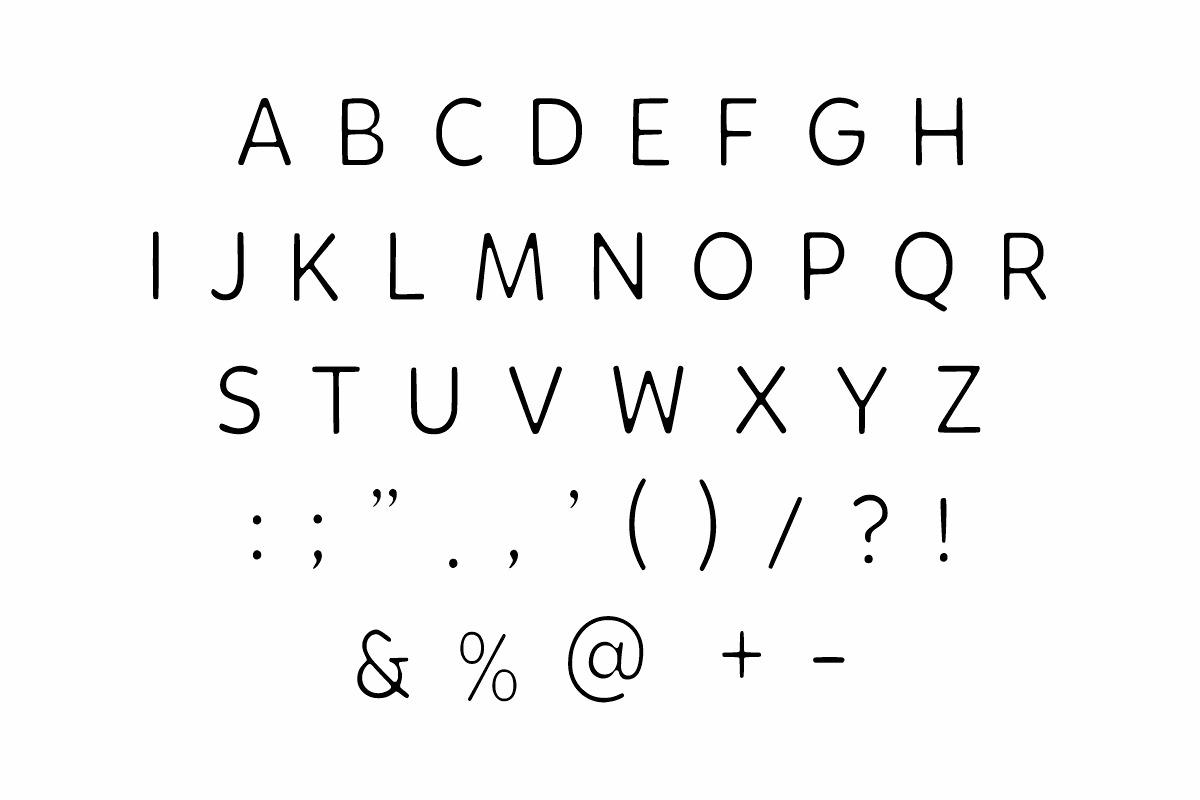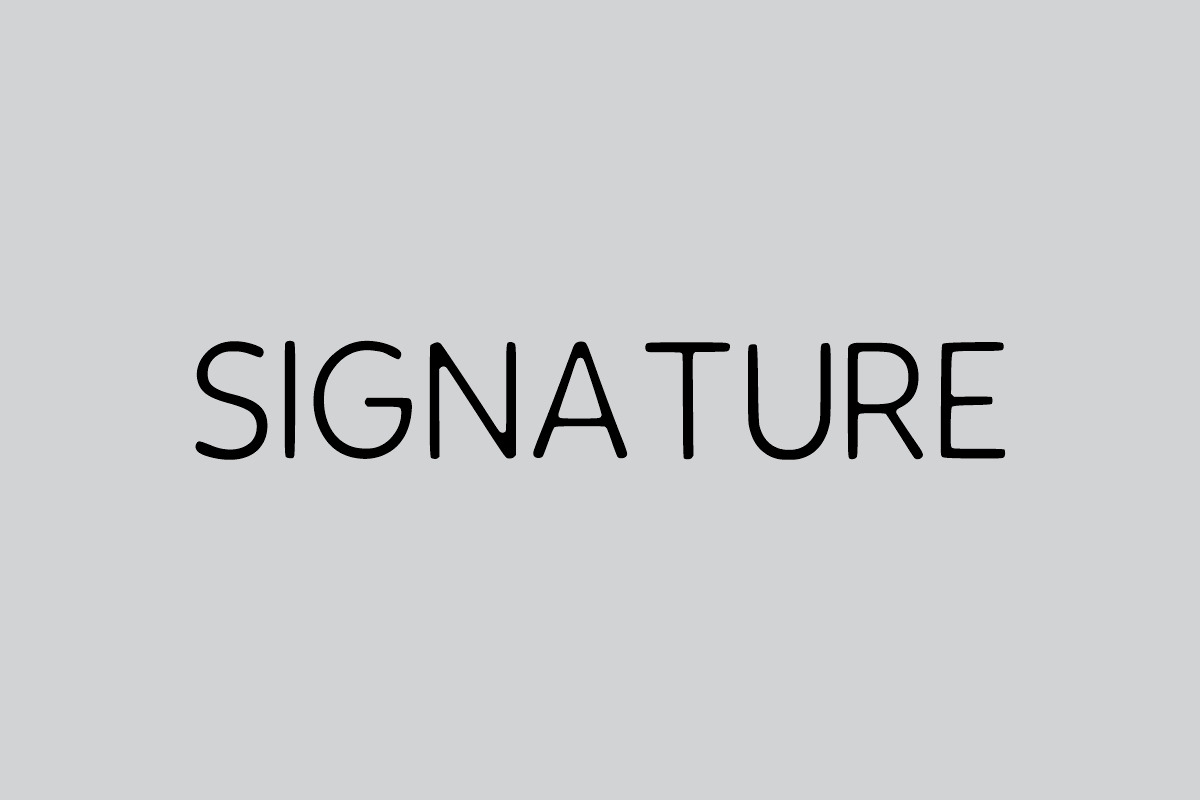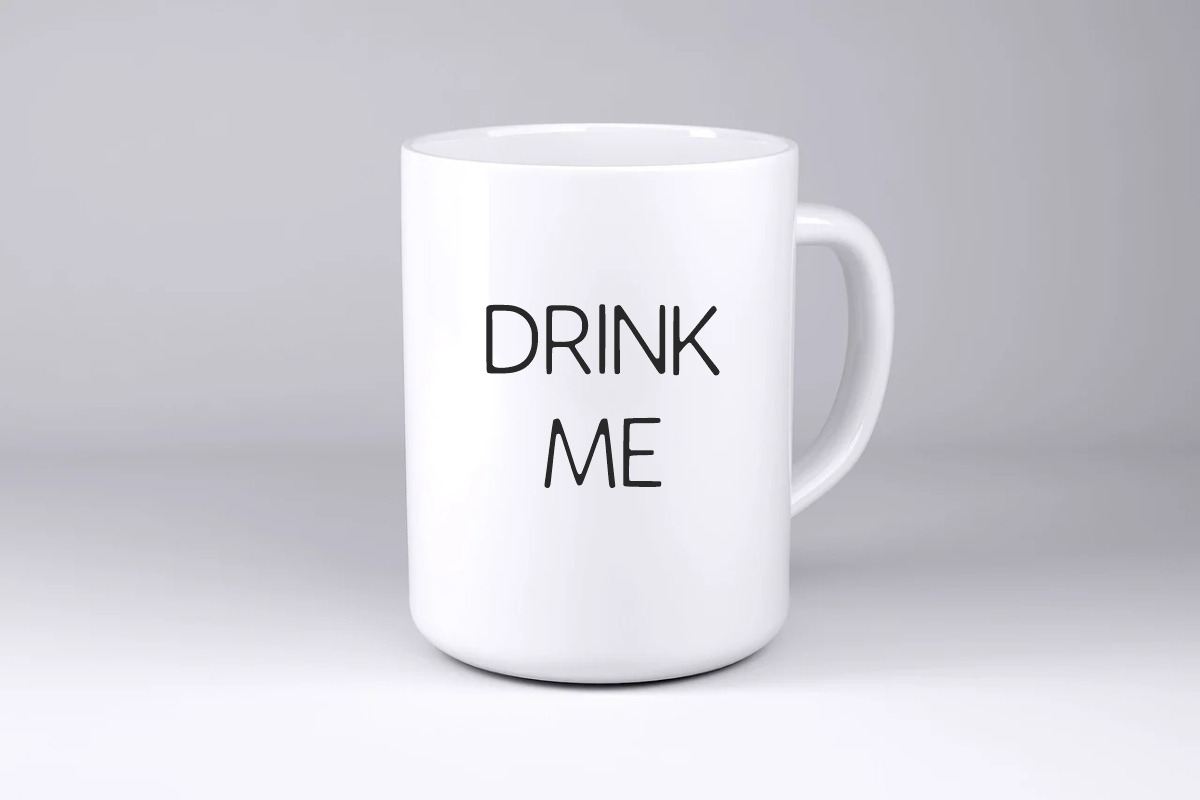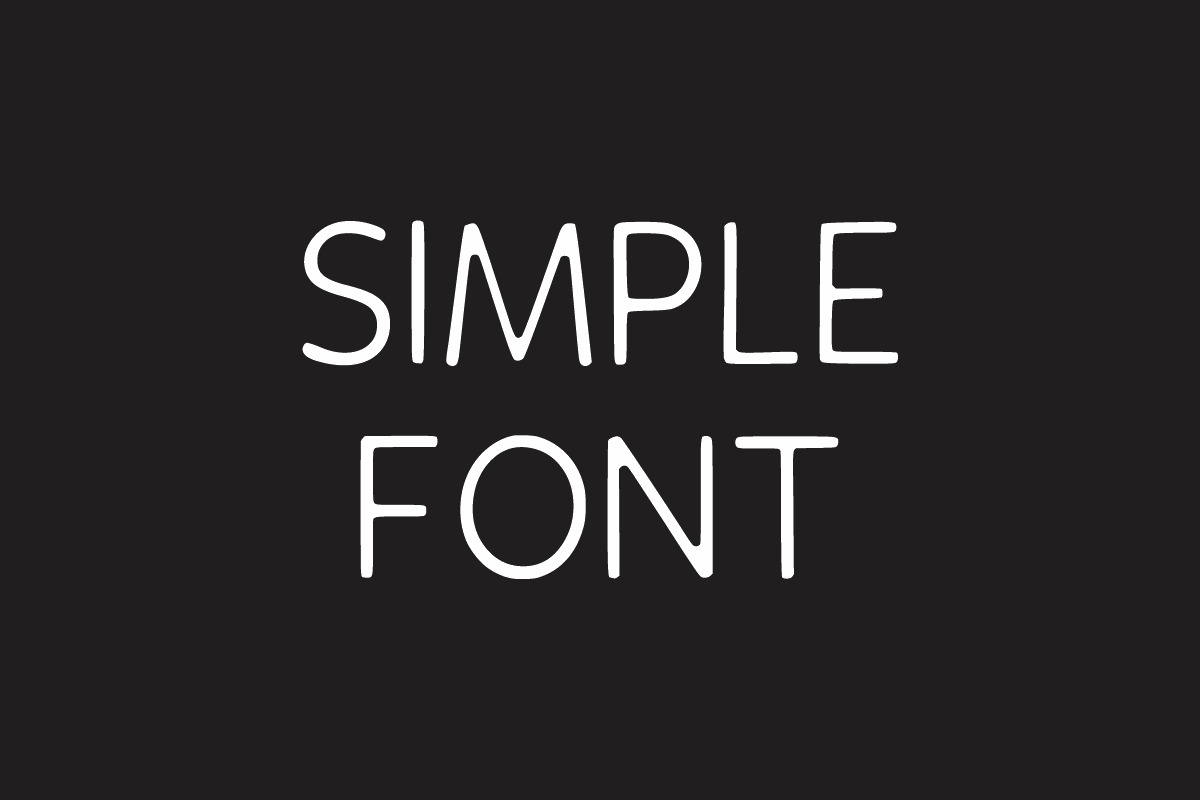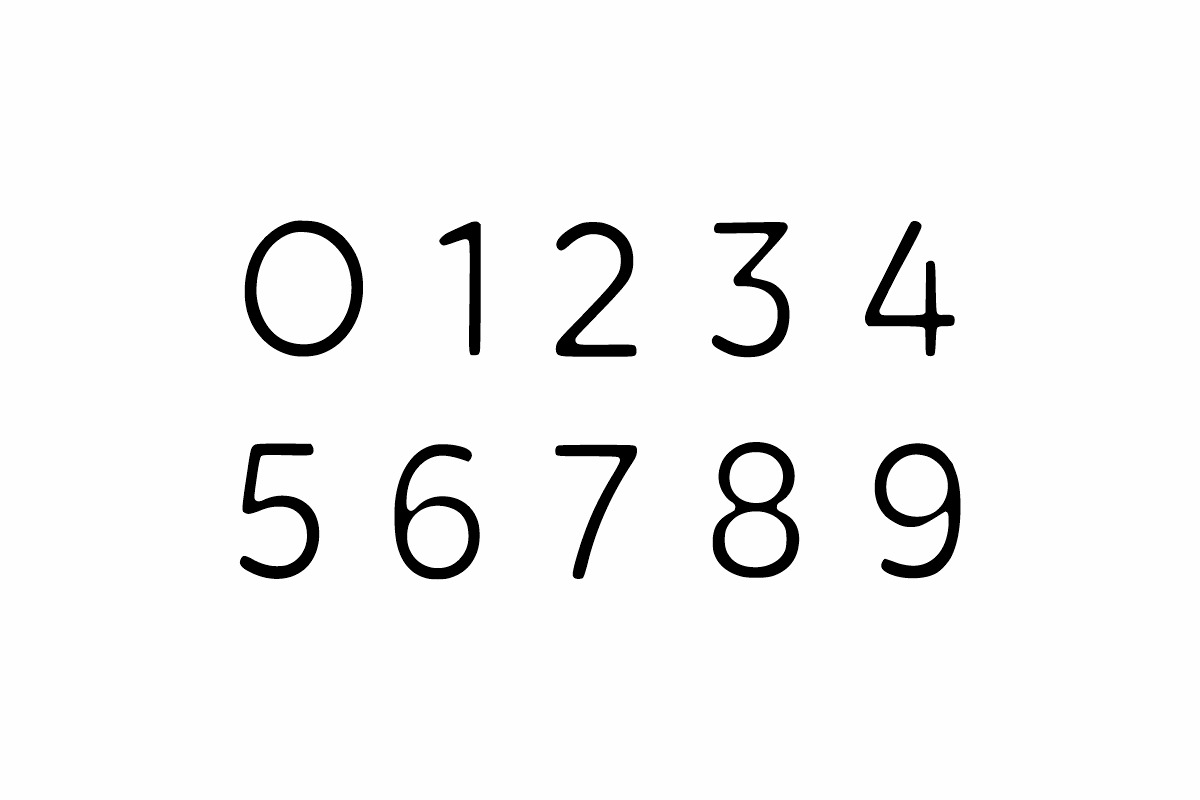
Flamingo
Flamingo is a modern, simple elegant display font. Its informal style and casual vibe will make this font a go-to choice for each of your creations that require a relaxed touch. It is suitable for any product packaging, invitation, quote, t-shirt, label, poster, or logo that you wish to develop!